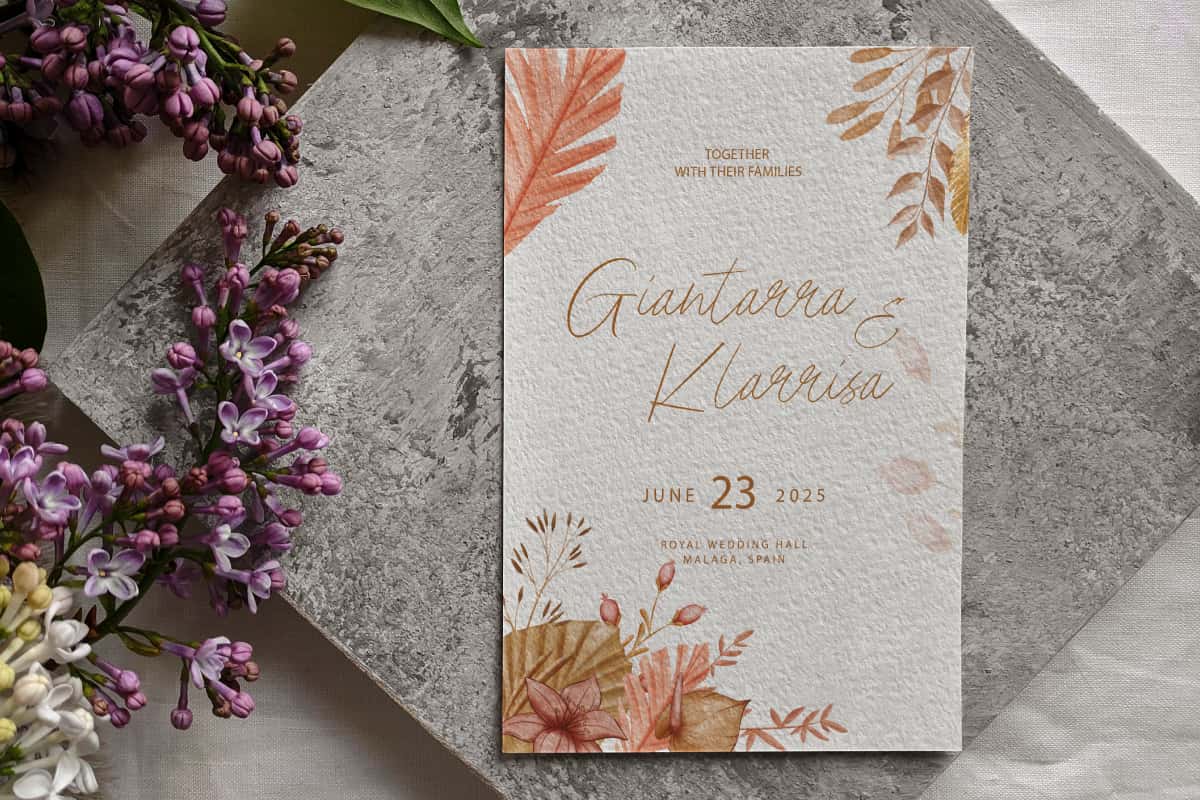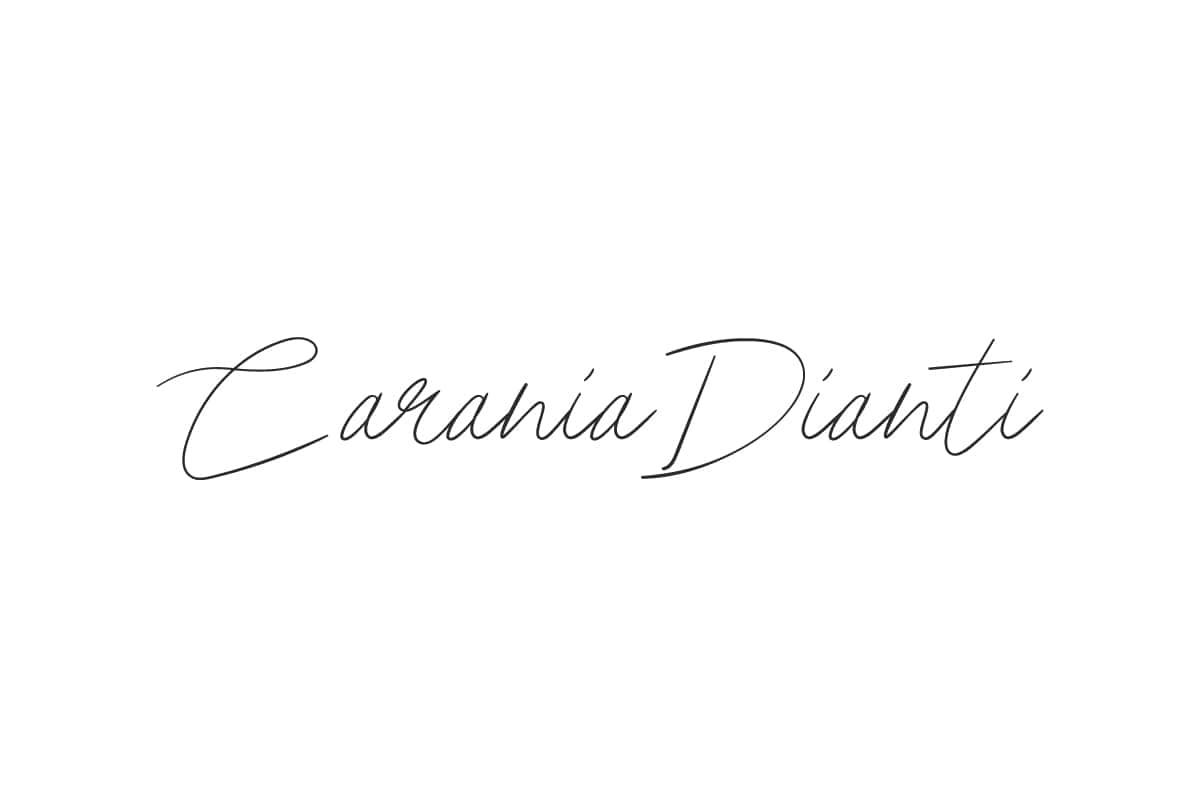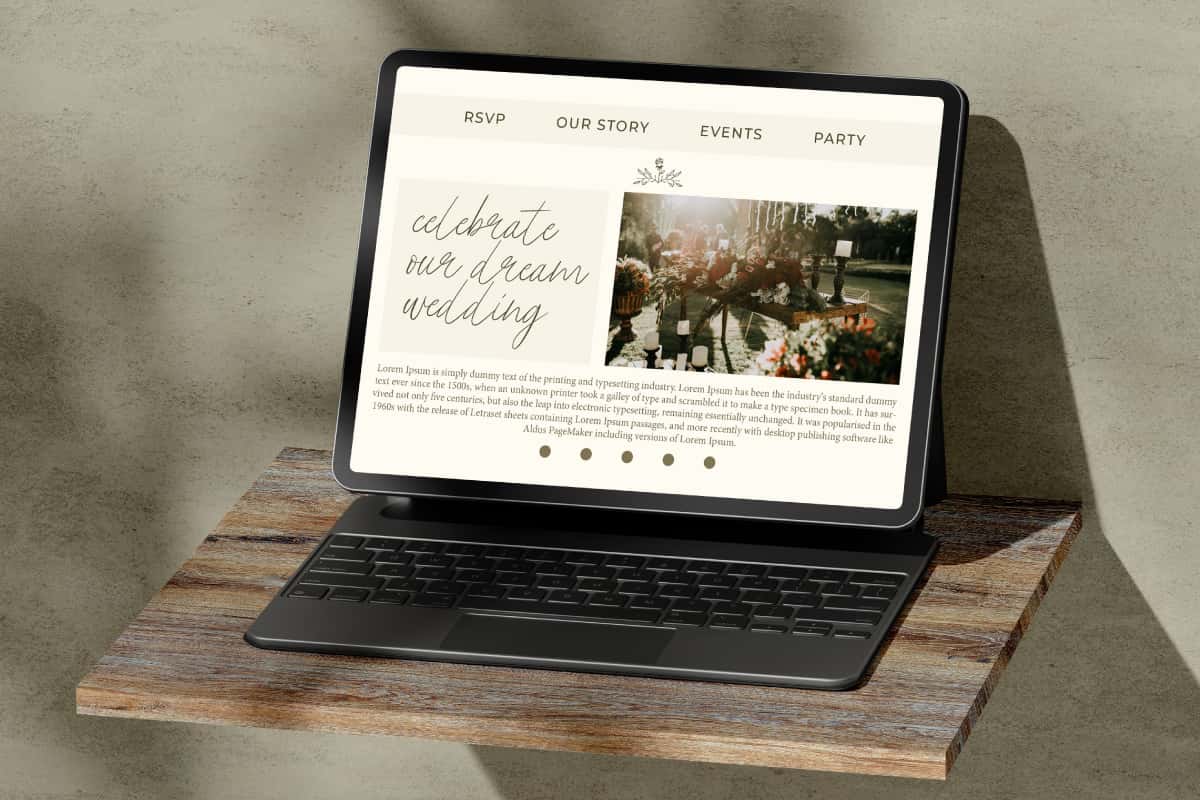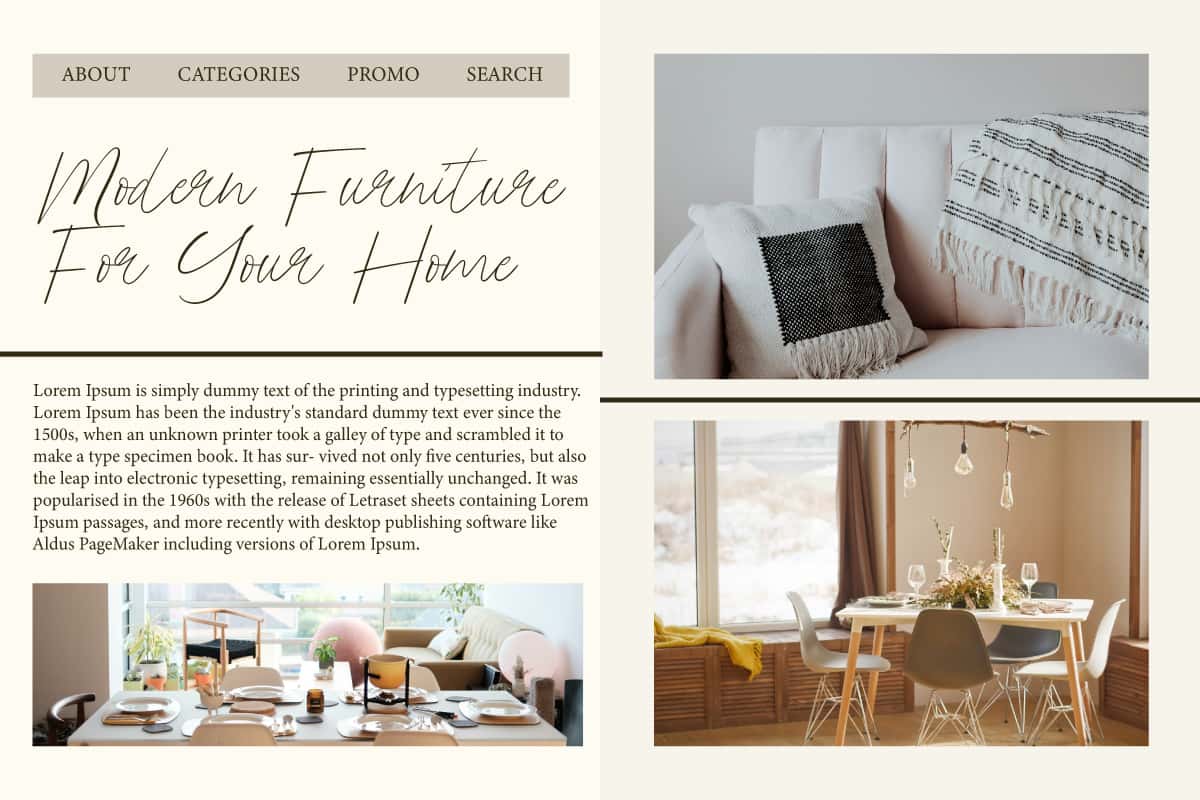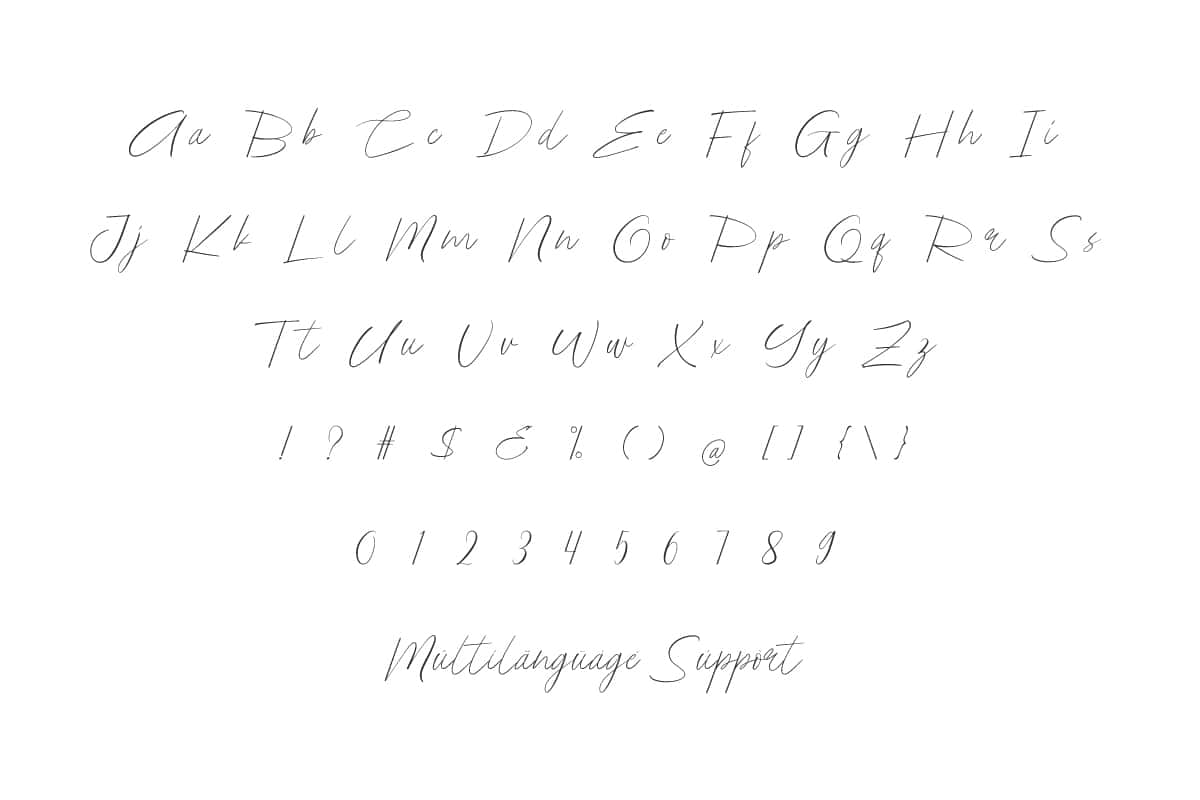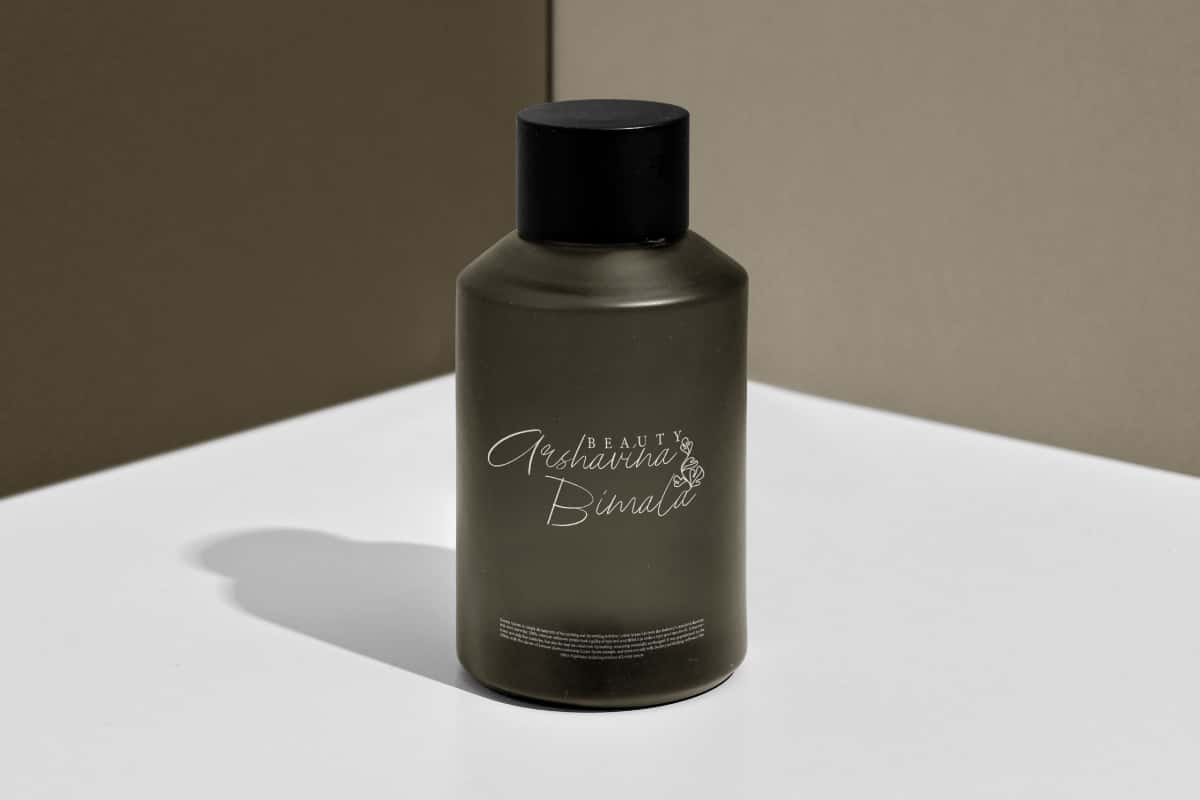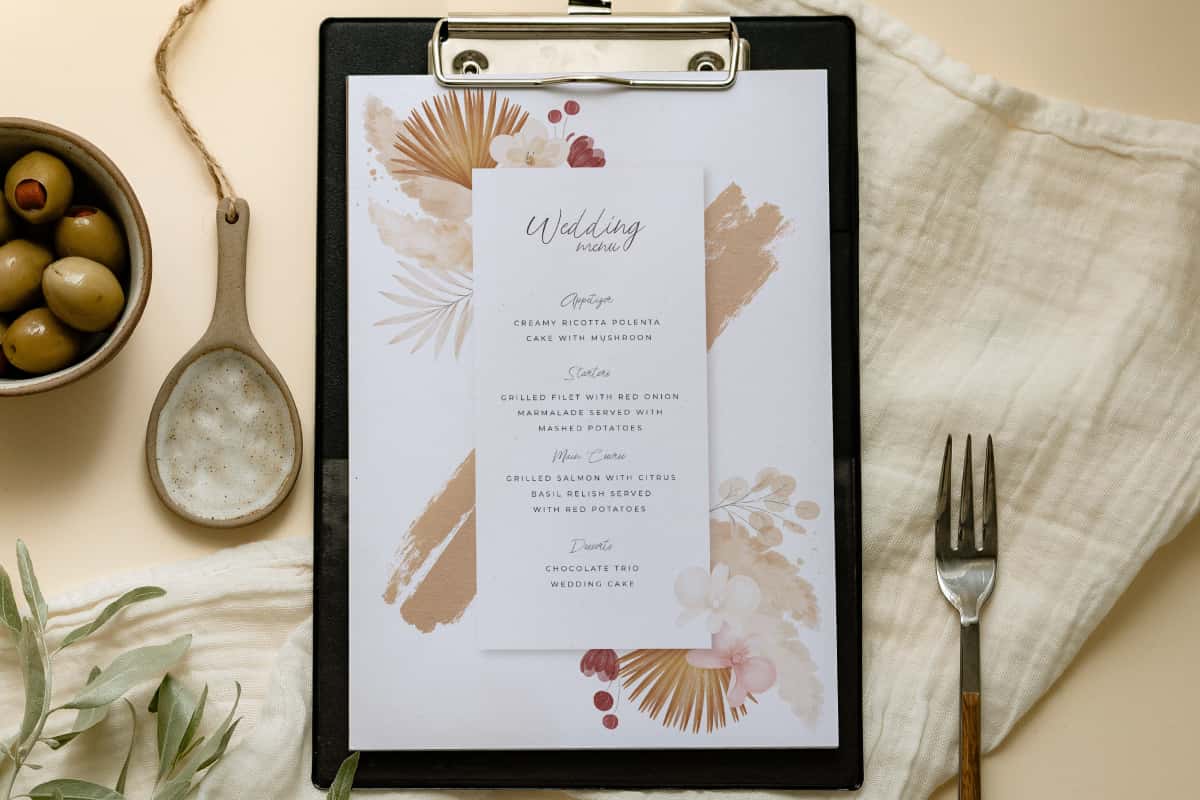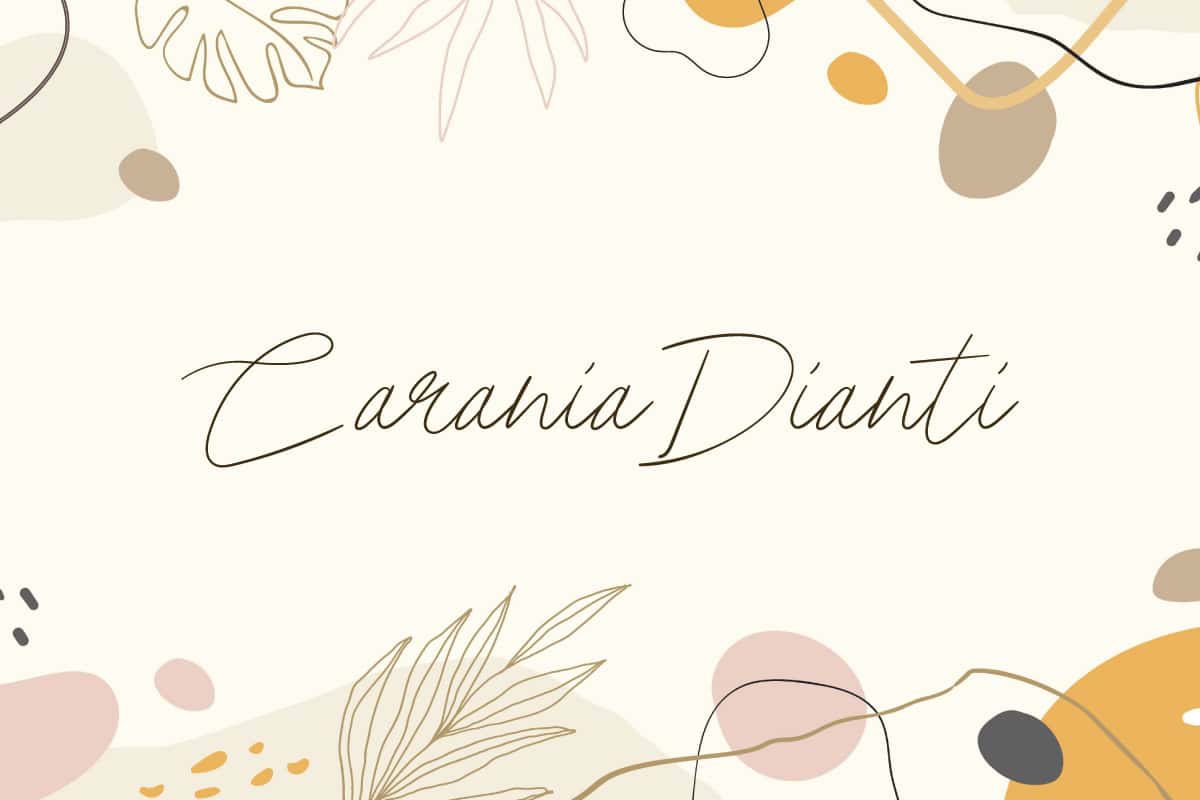
Carania Dianti Font is a beautiful signature in a fairly light handwritten style, created with great care to give a realistic style.
Carania Dianti Font is a casual and modern signature handwriting, presenting a sophisticated and stylish script style font trend that is perfect for apps, banners, blogs, brochure, covers, flyer, headers, invitation, logos, mockup, packaging, product label, template, title, watermark, website, and more.
Carania Dianti Font includes a complete set of Basic Uppercase and Lowercase Characters, Numbers, Punctuation, and Symbols. It features a personal touch and graceful design, a pure approach just like the original handmade! Perfect for architecture, cosmetic, fashion, florist, graphic design, home furniture, real estate, restaurant, skincare, wedding planner, and much more.